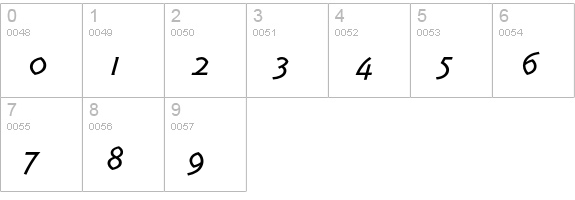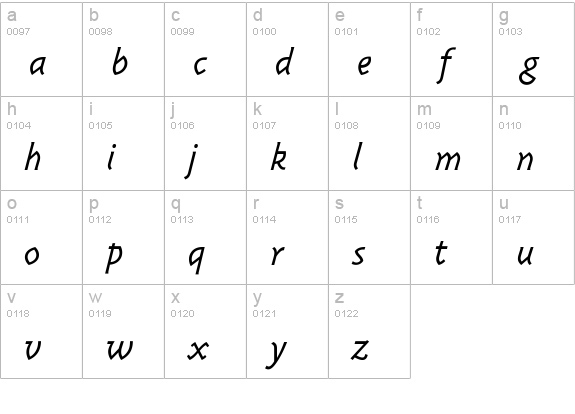
TriplexItalicLightOldstyle Font Details
TriplexItalicLightOldstyle is a unique and elegant font that effortlessly combines modern aesthetics with a touch of vintage charm. Its delicate and graceful curves exude sophistication, making it perfect for adding a touch of class to any project. This font features a beautifully slanted italic style, adding a sense of movement and dynamism to your typography. The light weight of the font gives it a subtle and airy quality, making it perfect for titles, headings, and other display purposes. The oldstyle elements of TriplexItalicLightOldstyle add a timeless appeal, evoking a sense of nostalgia and classic elegance. What sets TriplexItalicLightOldstyle apart is not only its impeccable design, but also the fact that it is available for free download at FontsMarket.com. This means that you can easily access and utilize this stunning font for your personal or commercial projects without any cost. Whether you are a professional designer, a student, or simply someone with a passion for typography, TriplexItalicLightOldstyle offers you the opportunity to elevate your creations with its unique and captivating aesthetic. With its versatility and timeless appeal, TriplexItalicLightOldstyle is the perfect choice for a wide range of design projects. From branding and logo design to invitations and website headers, this font can effortlessly enhance the visual impact of your work. Its legibility and elegant design make it suitable for both print and digital mediums, ensuring that your message is effectively communicated to your audience. In conclusion, TriplexItalicLightOldstyle is a remarkable font that combines modern aesthetics with classic charm. Its slanted italic style, light weight, and oldstyle elements make it versatile and suitable for a variety of design projects. Best of all, it is freely available for download at FontsMarket.com, allowing you to bring a touch of elegance to your creations without any cost.